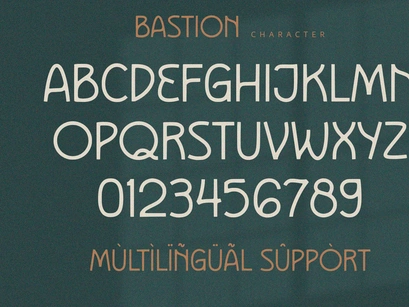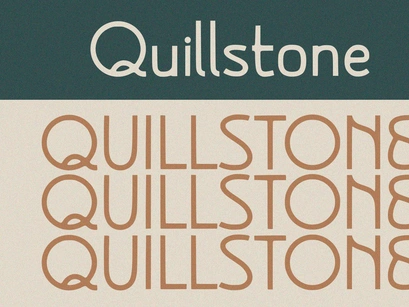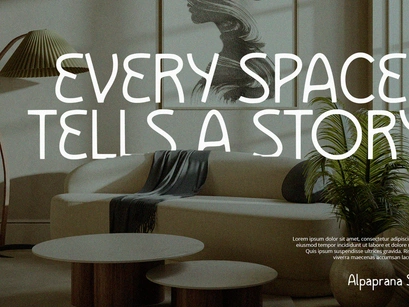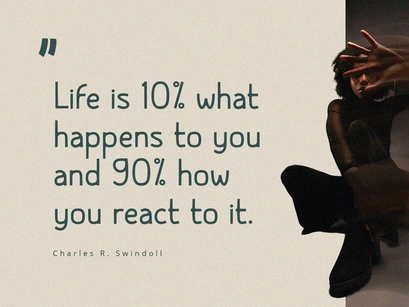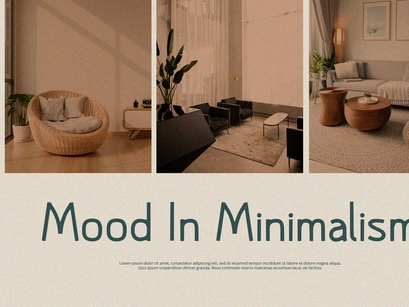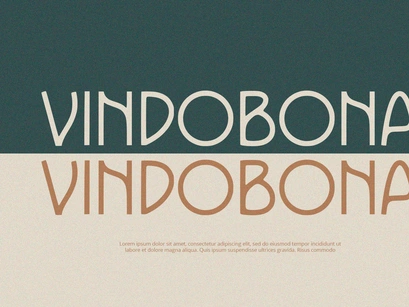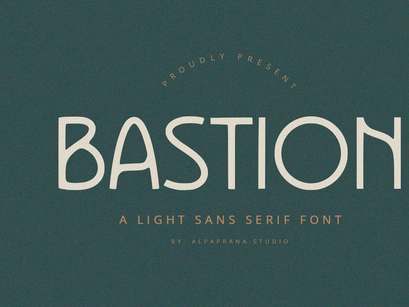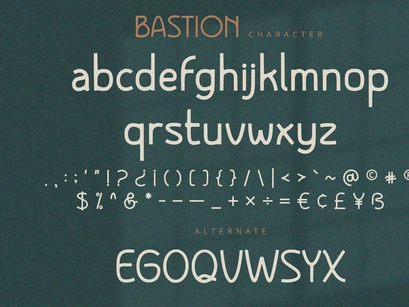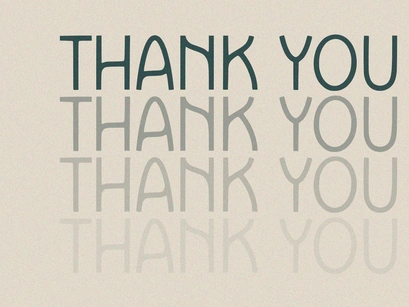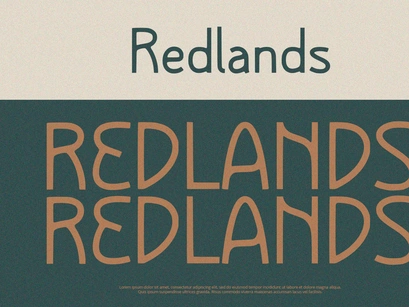
Bastion - Sans Serif Font
Bastion is light sans serif font with elegant and modern feels. It will be perfectly used for Branding, Logo Design, Lettering, Logotype, Clothing, Poster, magazine, packaging, posters, shopping bags, t-shirts, book covers, photography, special events and other design project.